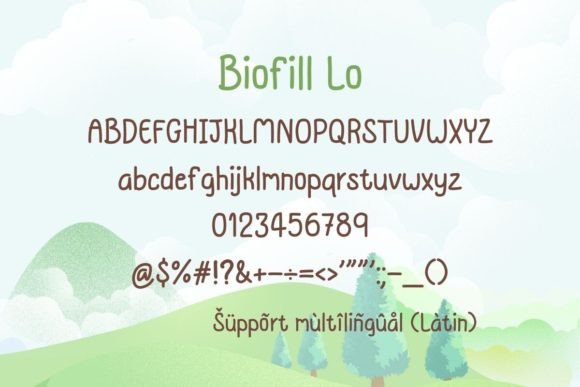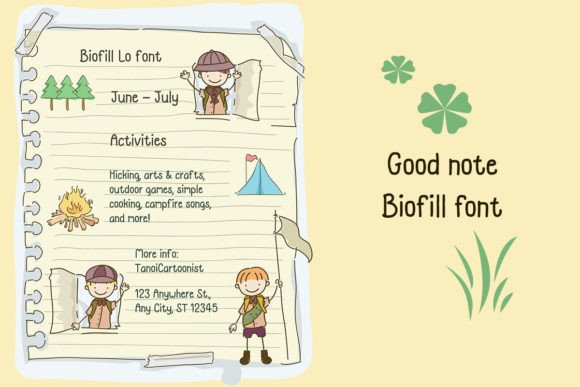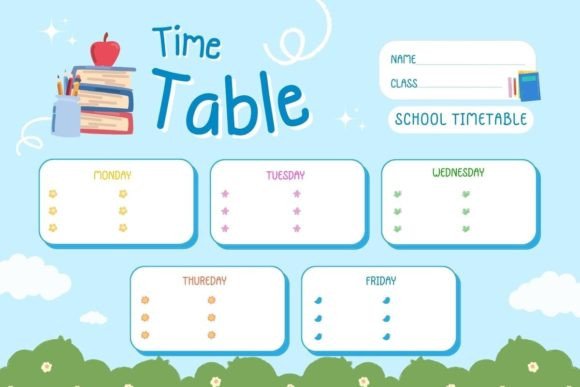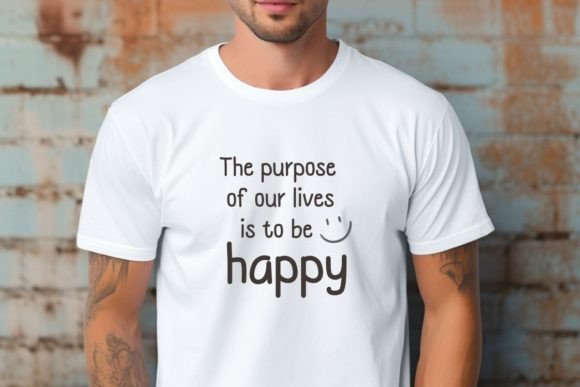
Discover the Elegance of Biofill Lo Font: Elevate Your Designs with Minimalist Charm
In the world of typography, the right font can make all the difference in transforming a design from ordinary to extraordinary. For those seeking a blend of minimalism and elegance, the Biofill Lo Font stands out as an exceptional choice. This article delves into the characteristics of Biofill Lo, exploring its features, and the myriad of creative possibilities it offers for designers and crafters alike.
The Essence of Biofill Lo Font
Biofill Lo is a minimal and neat sans serif font, distinguished by its clean lines and sleek aesthetic. The beauty of sans serif fonts lies in their simplicity and versatility, making them suitable for a wide range of design projects. Biofill Lo, with its uncluttered and modern appearance, brings a touch of sophistication to any design.
Key Features of Biofill Lo
- Minimalist Design: The font’s minimalist design ensures that it complements rather than overpowers the content, making it perfect for designers who aim for clarity and elegance.
- Clean Lines: The clean lines of Biofill Lo contribute to its sleek aesthetic, providing a crisp look that is pleasing to the eye.
- Versatility: Being a sans serif font, Biofill Lo offers great versatility, making it suitable for both digital and print designs.
- Easy to Read: The clear and straightforward design of Biofill Lo ensures that it is easy to read, which is crucial for readability in various applications.
Creative Applications of Biofill Lo Font
The adaptability of Biofill Lo makes it an excellent choice for a variety of projects. Here are some of the many creative ways you can utilize this elegant font:
- Fun Projects: Add a modern touch to your fun projects, such as party invitations or DIY crafts, with the stylish appeal of Biofill Lo.
- Diary Planners: Enhance the aesthetic of your diary or planner with Biofill Lo, making it not just functional but also visually appealing.
- Christmas Cards, Thank You Cards, and Wedding Invitations: Give your greeting cards and invitations a sophisticated look that is sure to impress.
- Quotes and Greeting Cards: Use Biofill Lo to highlight quotes or messages in your greeting cards, adding a touch of elegance.
- Logos and Posters: For businesses or events, Biofill Lo can be used to create modern and professional logos or posters.
- Blogs and Digital Content: Enhance the readability and style of your blog or digital content with this clean and modern font.
- Clothing and Accessories: From T-shirts to bags, Biofill Lo can be used in various design projects on clothing and accessories, offering a sleek and contemporary look.
Why Choose Biofill Lo for Your Designs?
Choosing Biofill Lo for your design projects comes with several advantages. Its universal appeal makes it a great choice for designers who aim to create work that resonates with a wide audience. The font’s simplicity allows it to pair well with a variety of design elements, ensuring that your work stands out without being overpowering.
Biofill Lo Font is a versatile and elegant sans serif font that can elevate your designs with its minimalist charm. Whether you are working on a fun project, a professional design, or simply looking to add a touch of sophistication to your craft, Biofill Lo offers the perfect blend of style and readability. By incorporating this sleek and modern font into your work, you open up a world of creative possibilities that are sure to leave a lasting impression.
Embrace the elegance of Biofill Lo and discover how this minimal and neat font can transform your designs, making them more appealing and engaging to your audience.